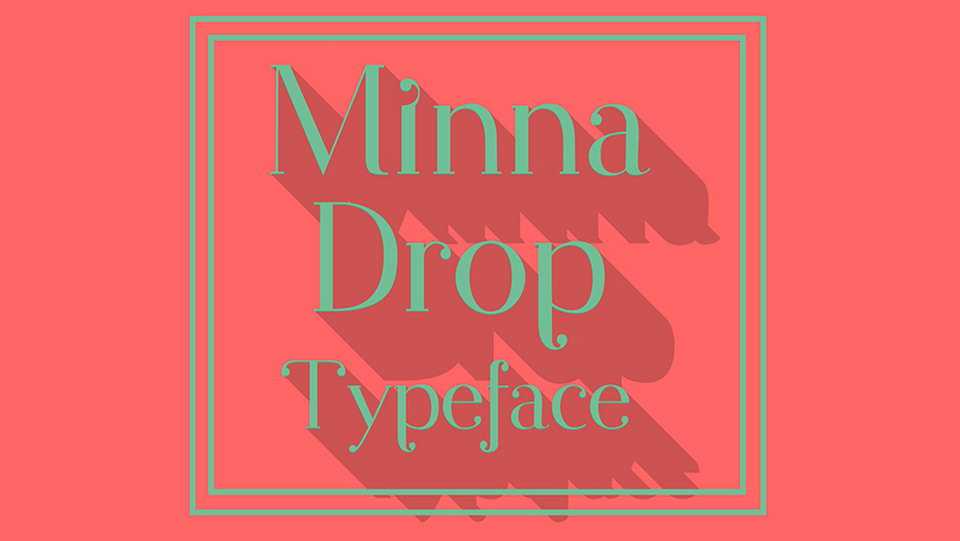
Download Minna Drop font – a charming and gentle serif. This font is perfectly suits for logos, branding, fashion and apparel, magazines and social media, wedding and romantic decoration.
Designer: Romy Fey